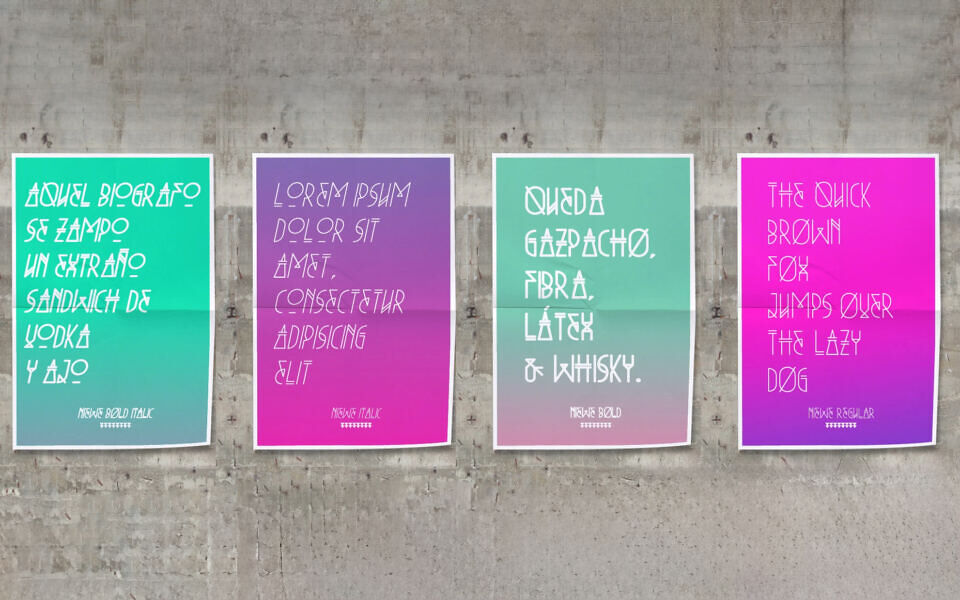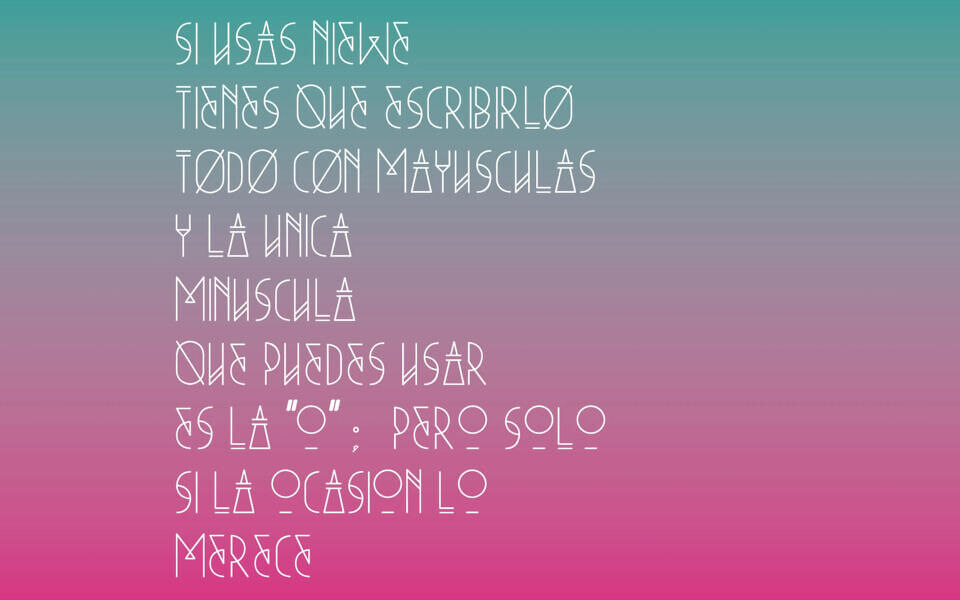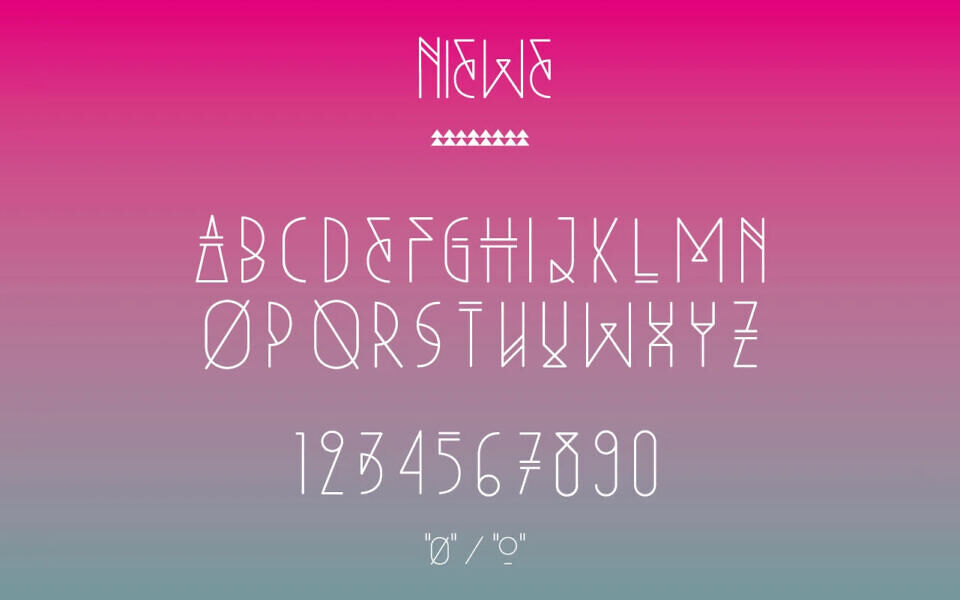
Niewe Font
Niewe Font is a free, modern display typeface designed by Mr.Zyan, featuring four harmonious styles: Regular, Italic, Bold, and Bold Italic.
Its clean, geometric letterforms blend a subtle sci-fi edge with crisp readability, making it ideal for headlines, logos, posters, and creative branding. The balanced proportions and distinctive character shapes give Niewe a fresh, contemporary feel that stands out in display use.